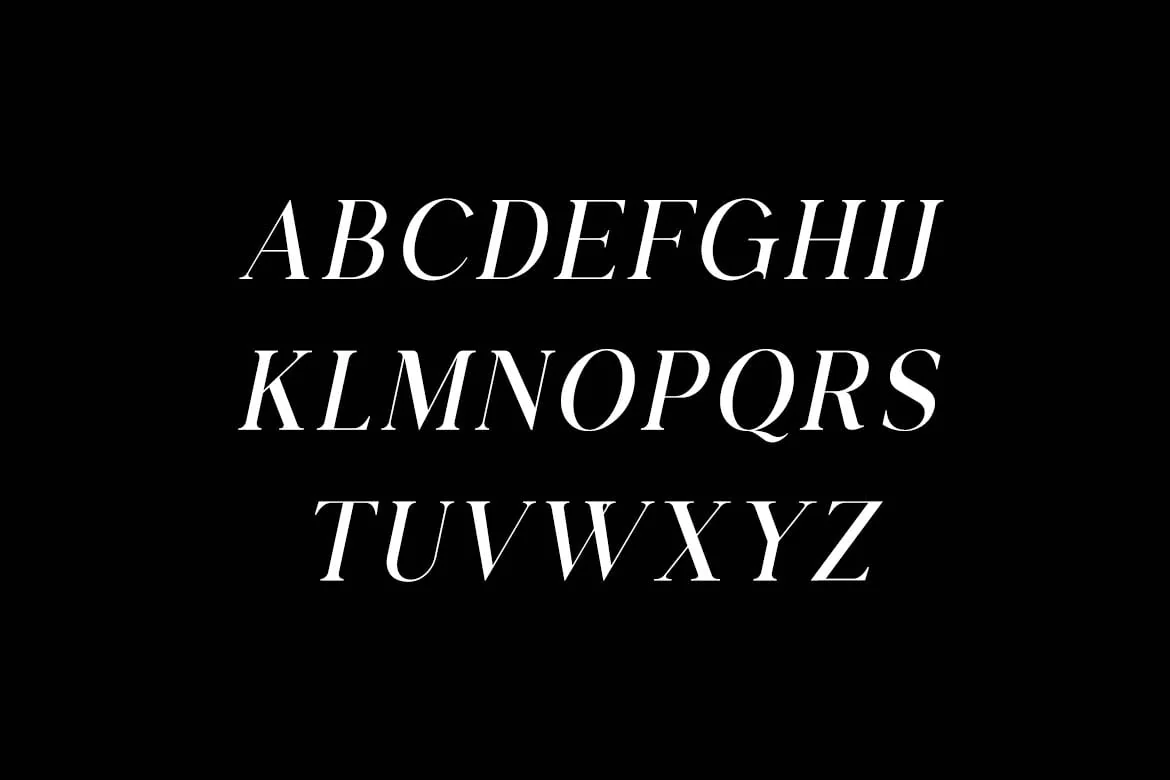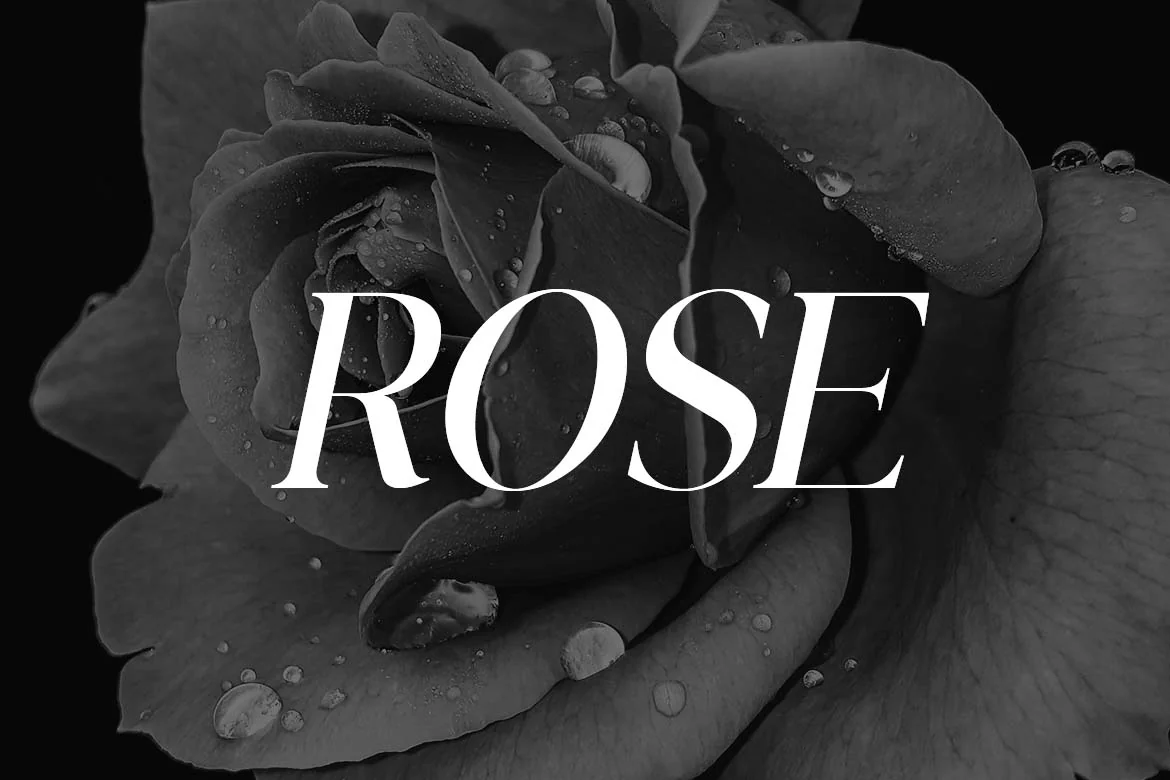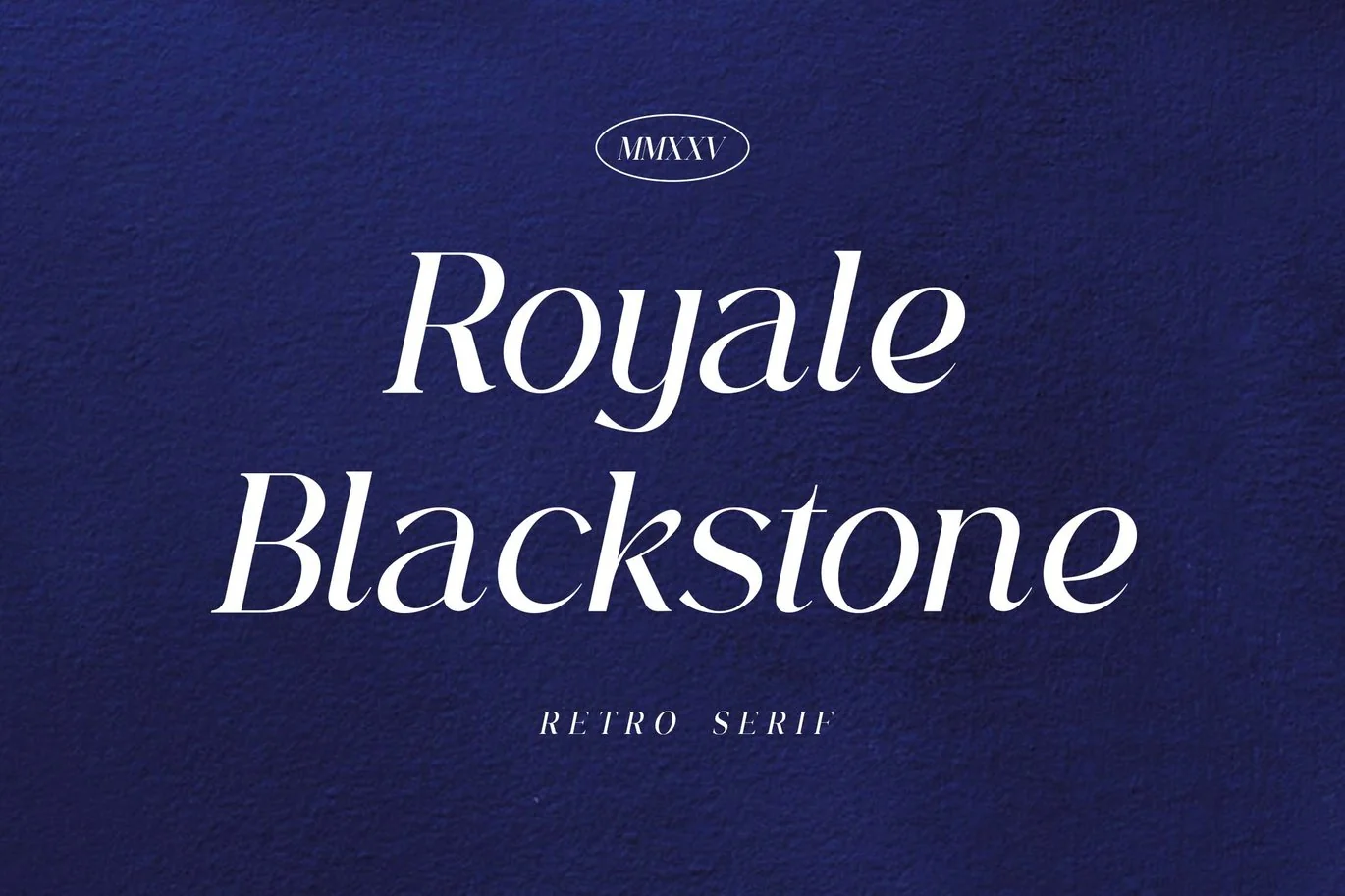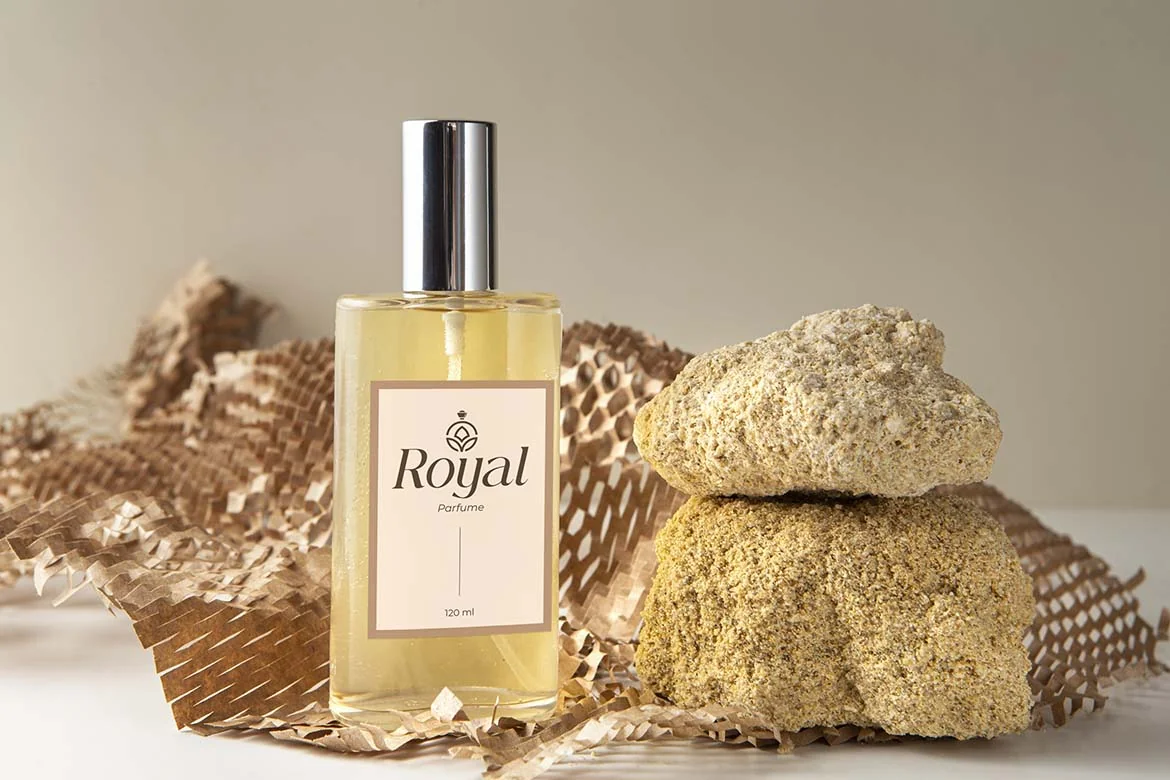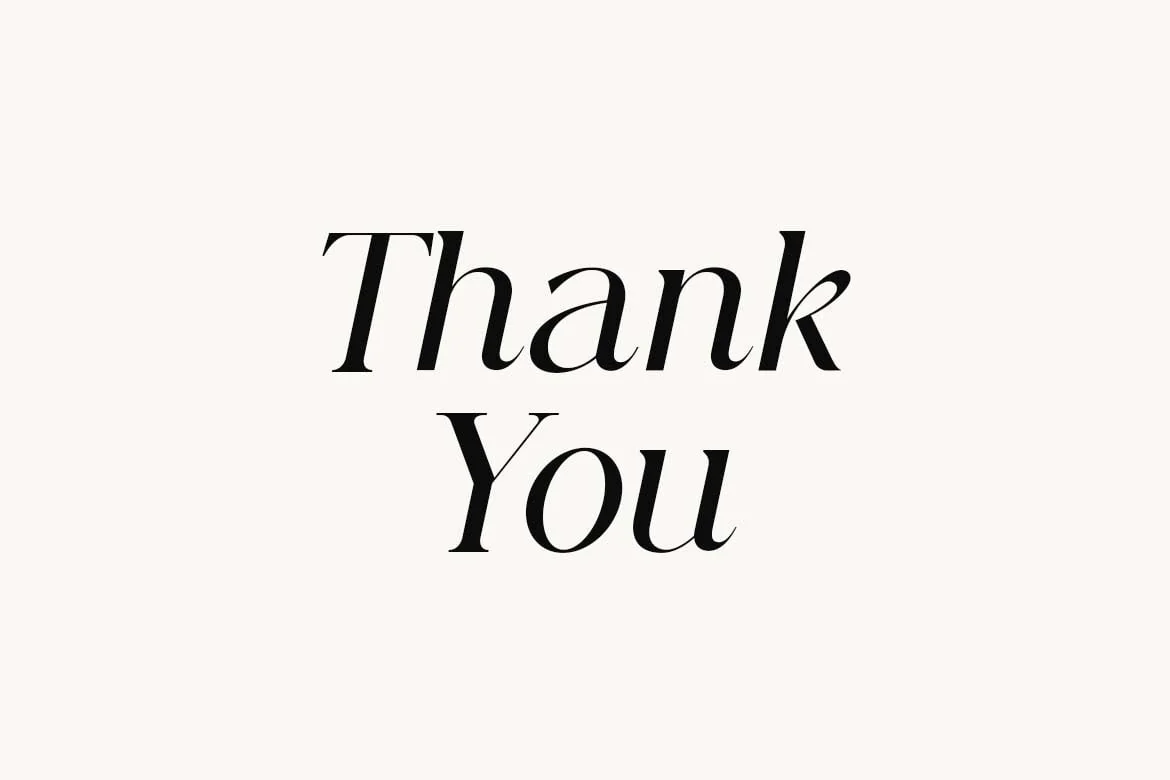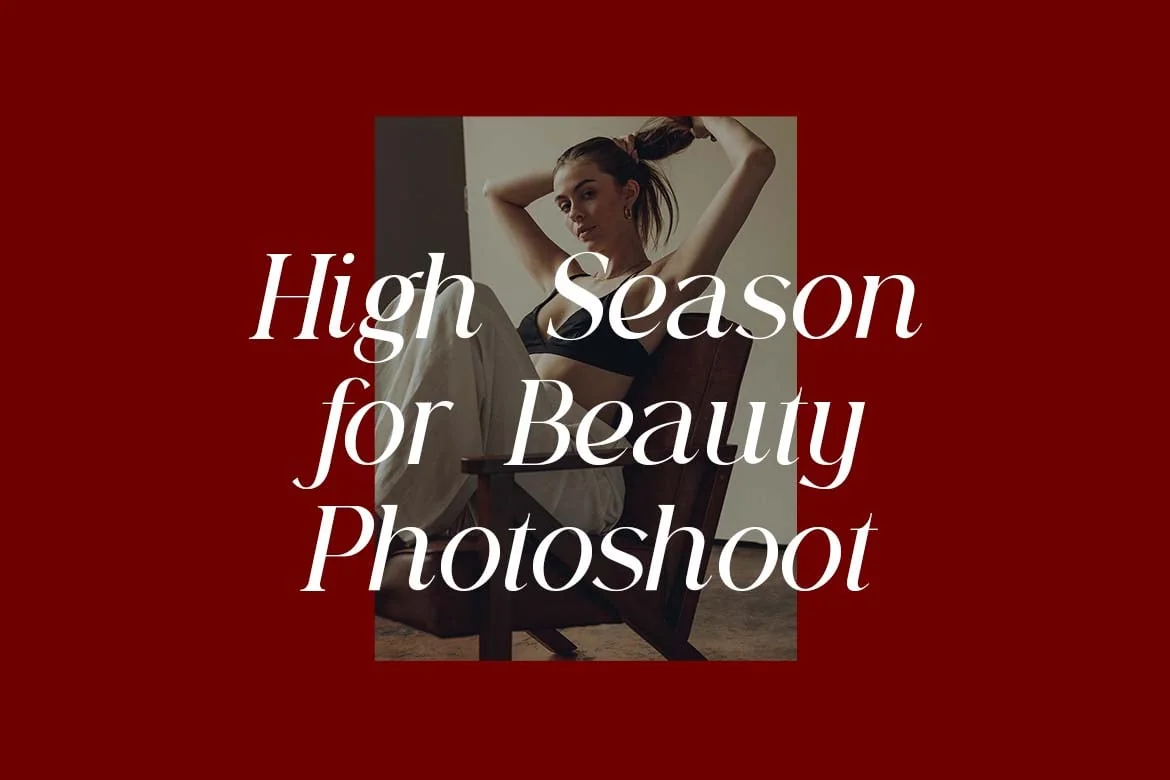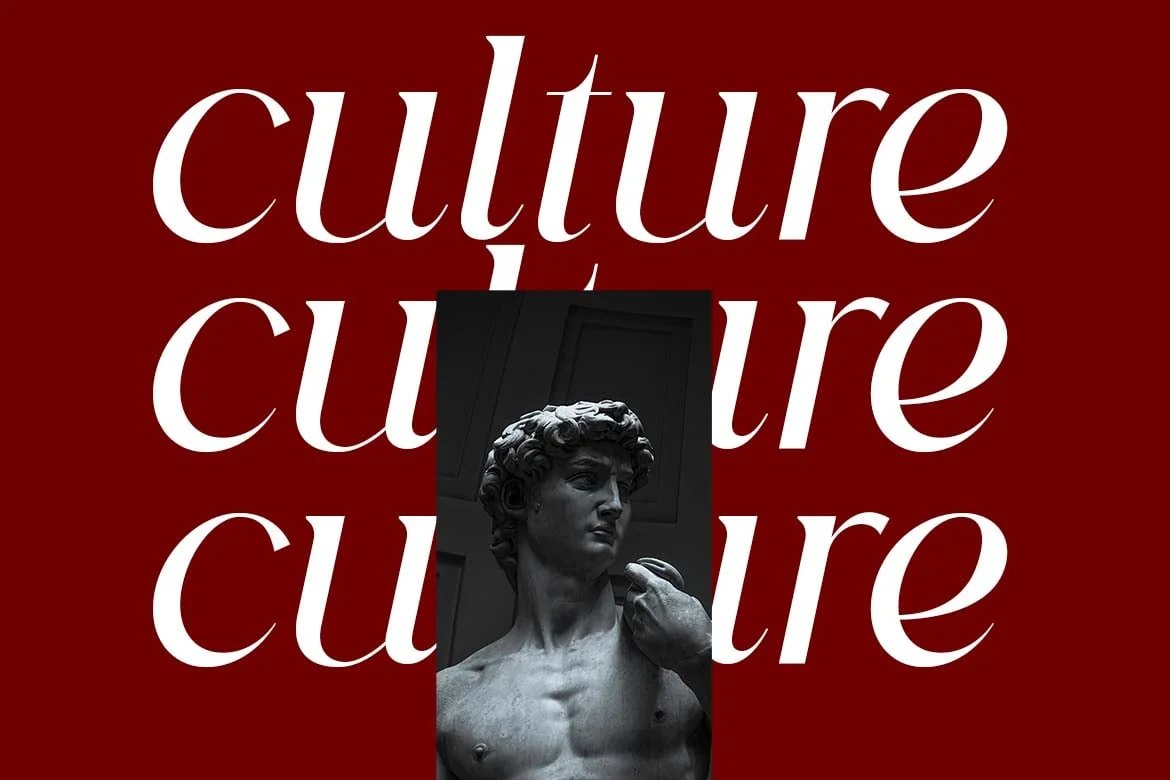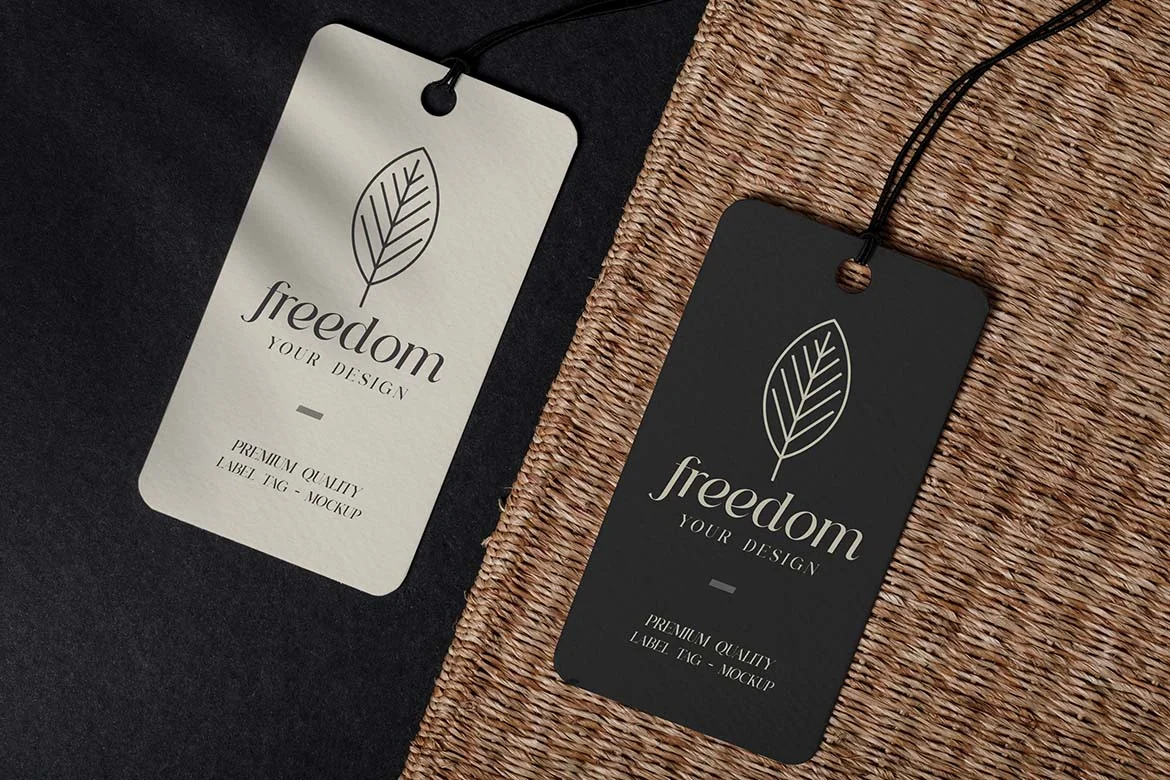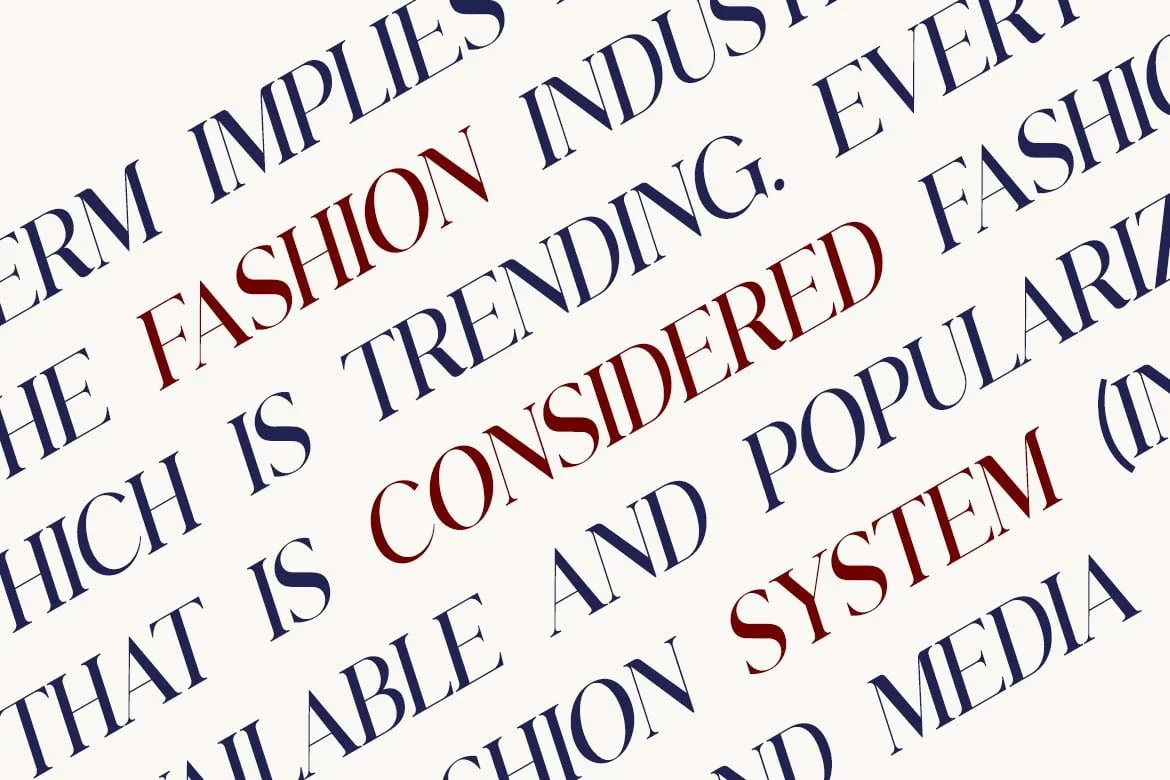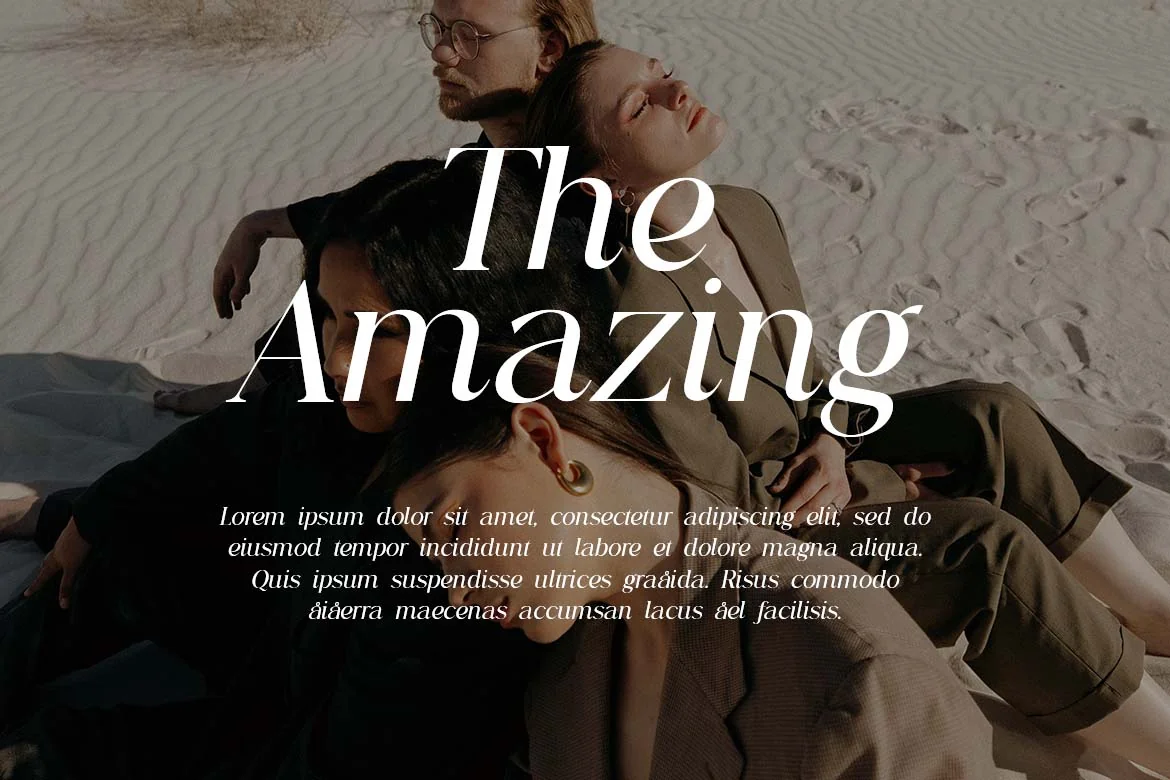
Royale Blackstone Retro Serif Font
Introducing our new product the name is Royale Blackstone Retro Serif Font. Royale Blackstone Retro Serif Font that feels beautiful classy, elegant, and modern. This font is perfectly suited for a wide variety of projects, such as signature, stationery, logo, wedding, typography quotes, magazine or book covers, website headers, clothing, branding, packaging design, and more. Also, fashion-related branding or editorial design displays both masculine and feminine qualities.
Royale Blackstone is a distinguished retro serif font that masterfully captures the nostalgic elegance of vintage typography while offering modern versatility and functionality. This charismatic typeface combines the rich character of classic serif designs with subtle contemporary refinements, creating letterforms that evoke the sophistication of bygone eras while remaining highly readable and adaptable for today’s design applications. Its thoughtfully crafted details and balanced proportions make it an excellent choice for projects that seek to convey timeless quality, heritage, and refined taste with a touch of vintage charm.
Drawing inspiration from mid-century typographic traditions, Royale Blackstone features graceful sweeping strokes and old-world charm that recall the elegant printed materials of the 1940s and 1950s.
The font strikes a perfect balance between decorative character and functional clarity, with carefully designed serifs that add personality without sacrificing legibility. This retro-inspired typeface pairs exceptionally well with both minimal sans serif fonts for striking contrast and complementary vintage designs for cohesive period aesthetics.
Royale Blackstone Retro Serif Font excels in projects related to luxury brands, historical references, classic literature, upscale hospitality, and premium packaging that aims to communicate established tradition and enduring quality. Whether used for elegant invitations, book covers, restaurant menus, or heritage brand identities, this font provides designers with a sophisticated typographic tool that bridges the gap between nostalgic inspiration and contemporary design requirements.
Royale Blackstone Retro Serif Font Features:
- Classic Serif Characters with Vintage-Inspired Details
- Complete Punctuation, Numerals, and Period-Appropriate Symbols
- Full Uppercase and Lowercase Character Sets
- Stylistic Alternates for Period-Authentic Typography
- Special Ligatures Inspired by Mid-Century Printing
- Extended Character Support for Multiple Languages
- OpenType Features for Advanced Typography Control